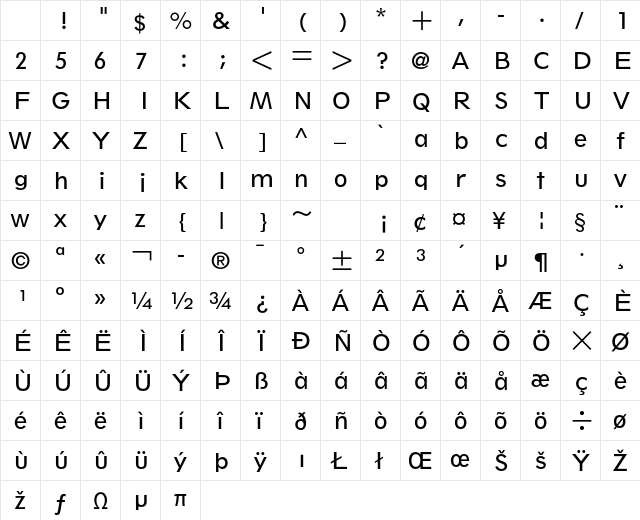
Spartan LT Std Book Classified Free Font
Spartan LT Std Book Classified
Style: Book Classified
Design Context for Spartan LT Std
Spartan LT Std is a composed and adaptable typeface that performs quietly and consistently across a wide range of design contexts. Its slender proportions lend an understated elegance to any composition.